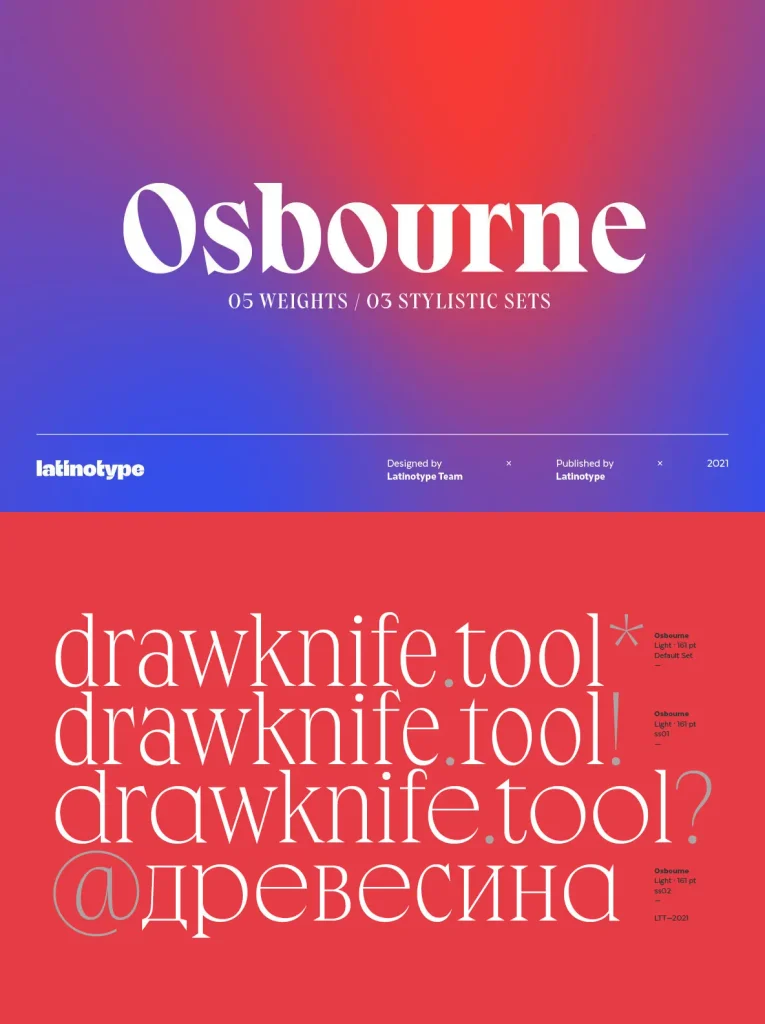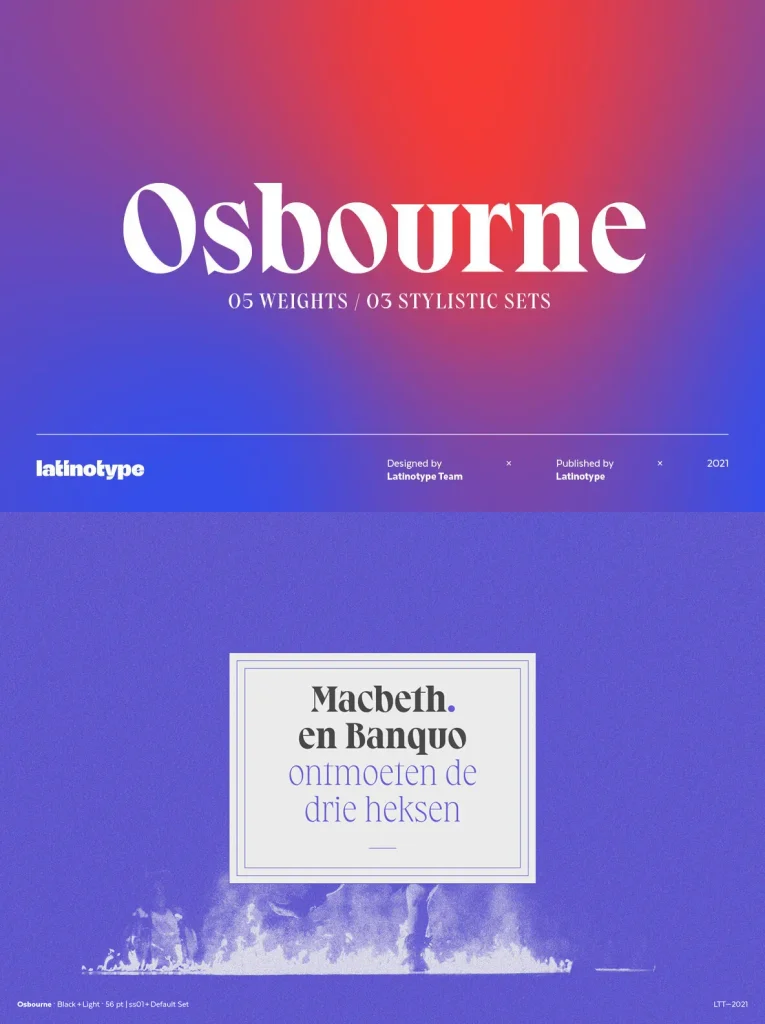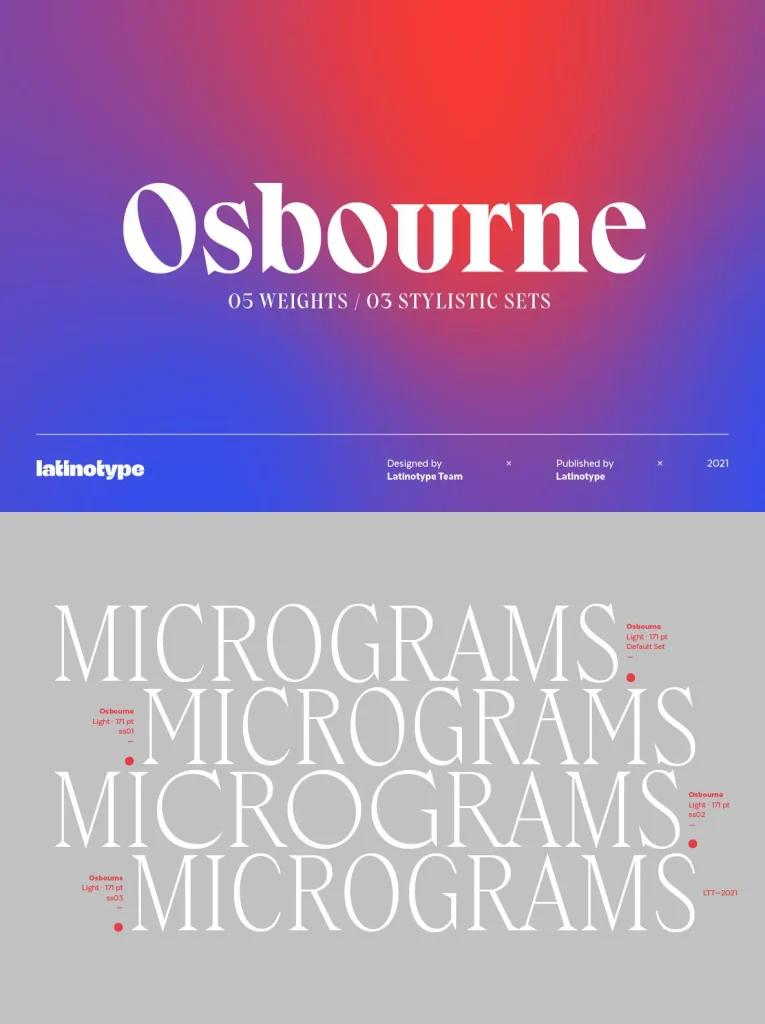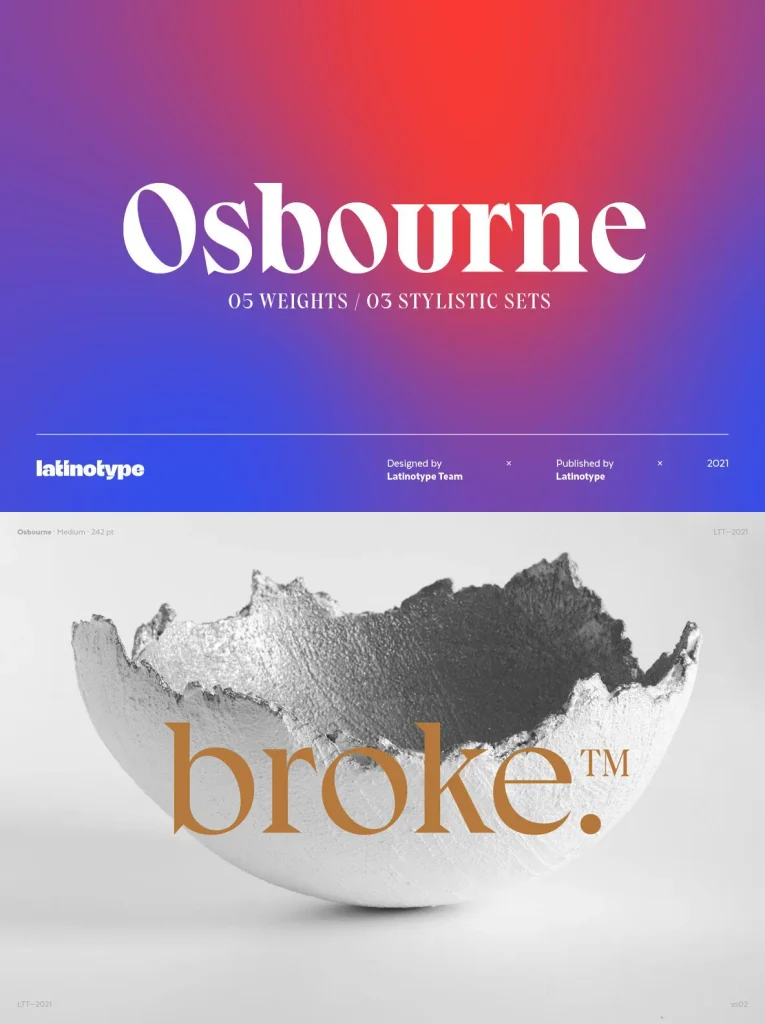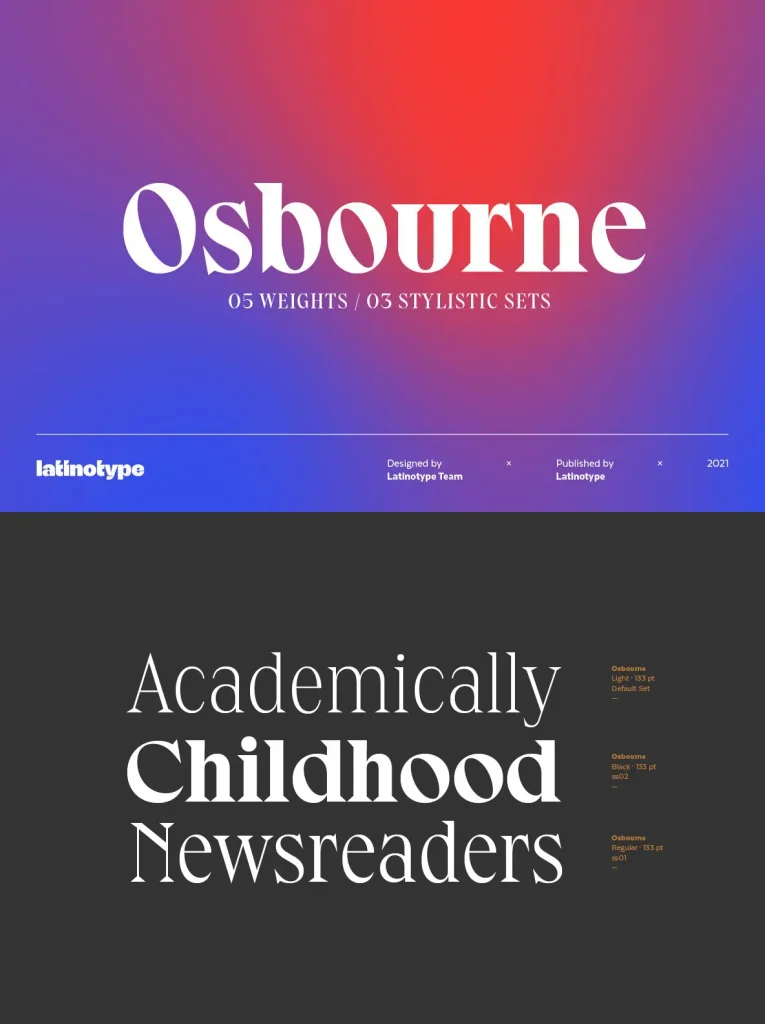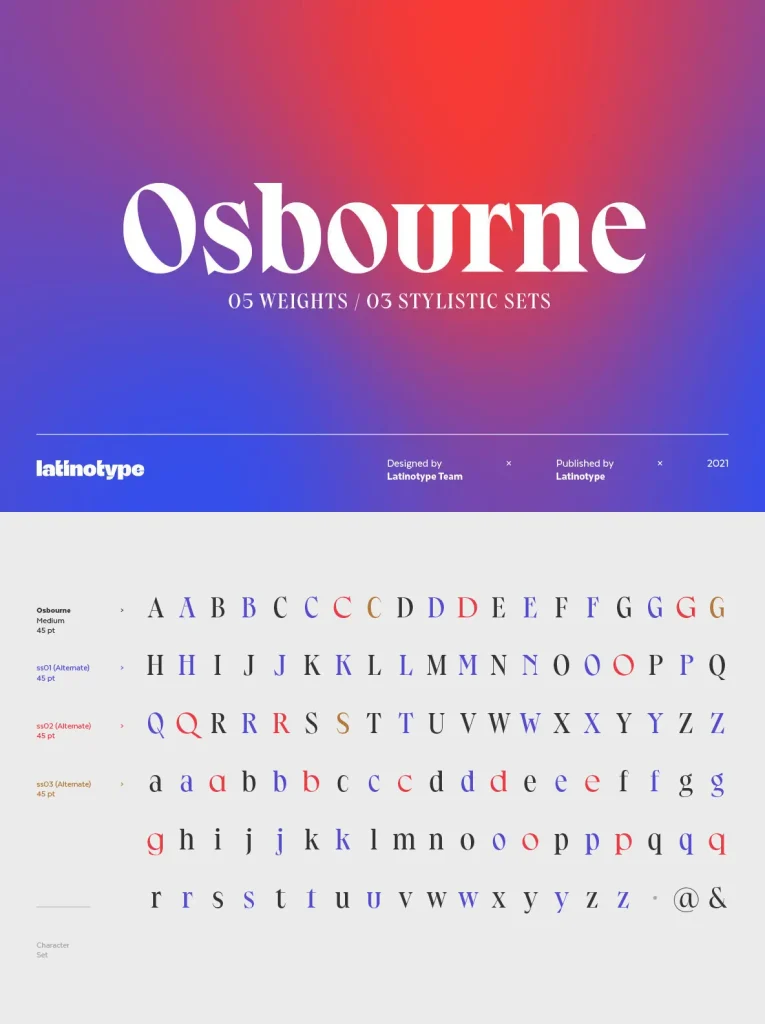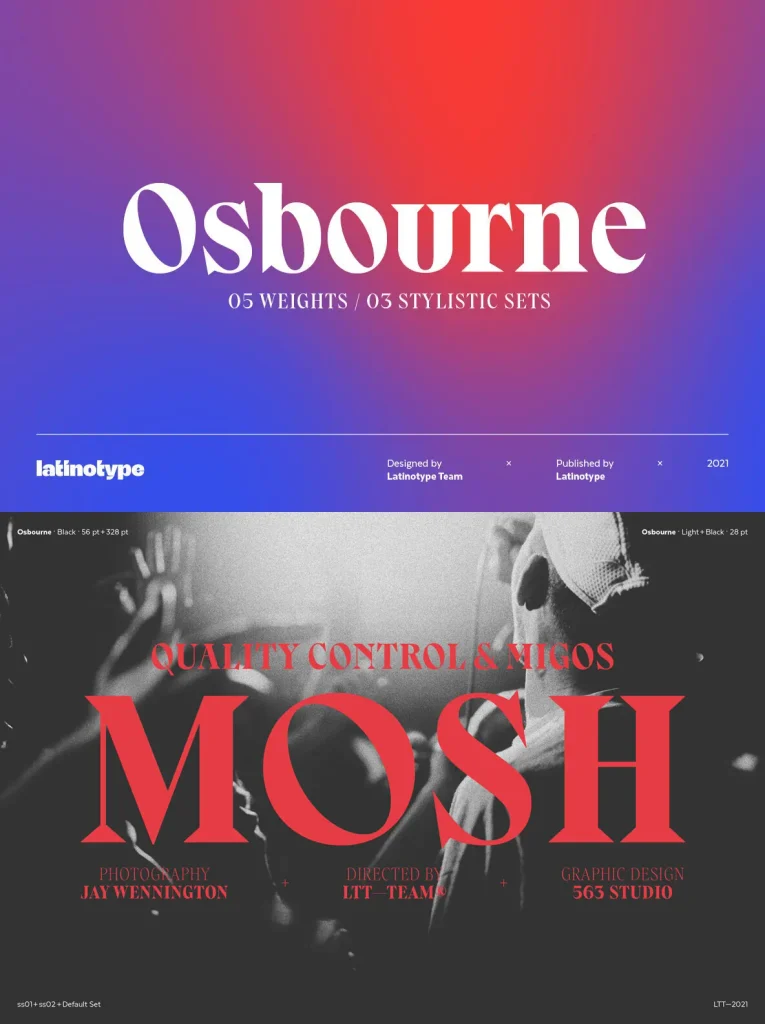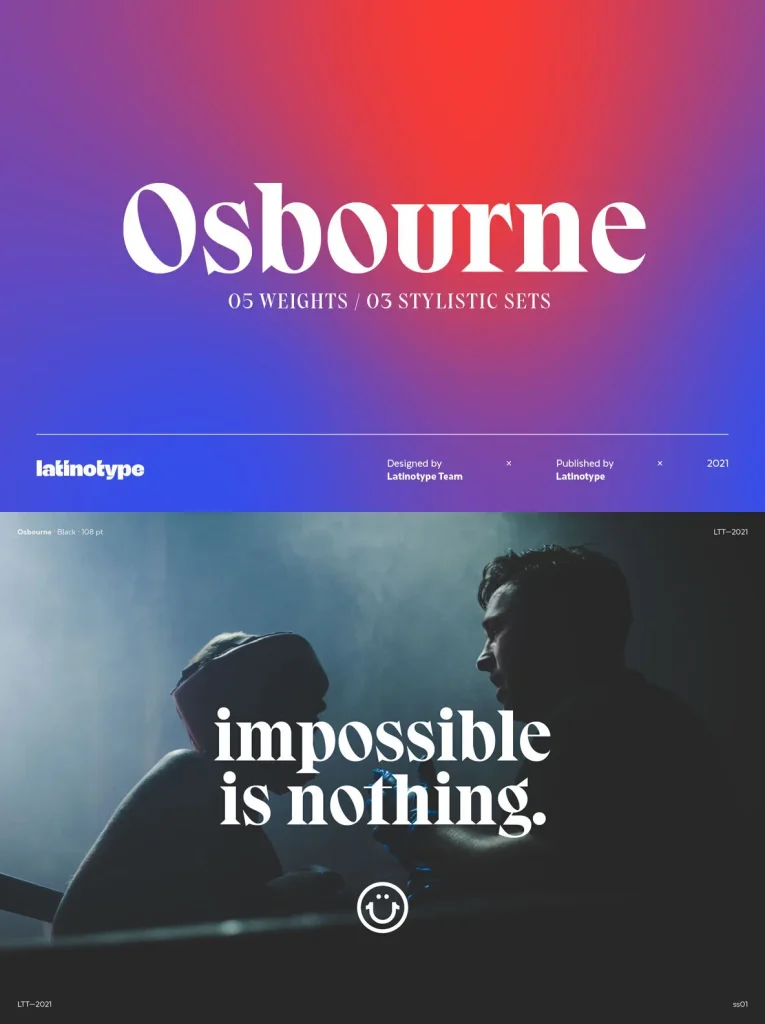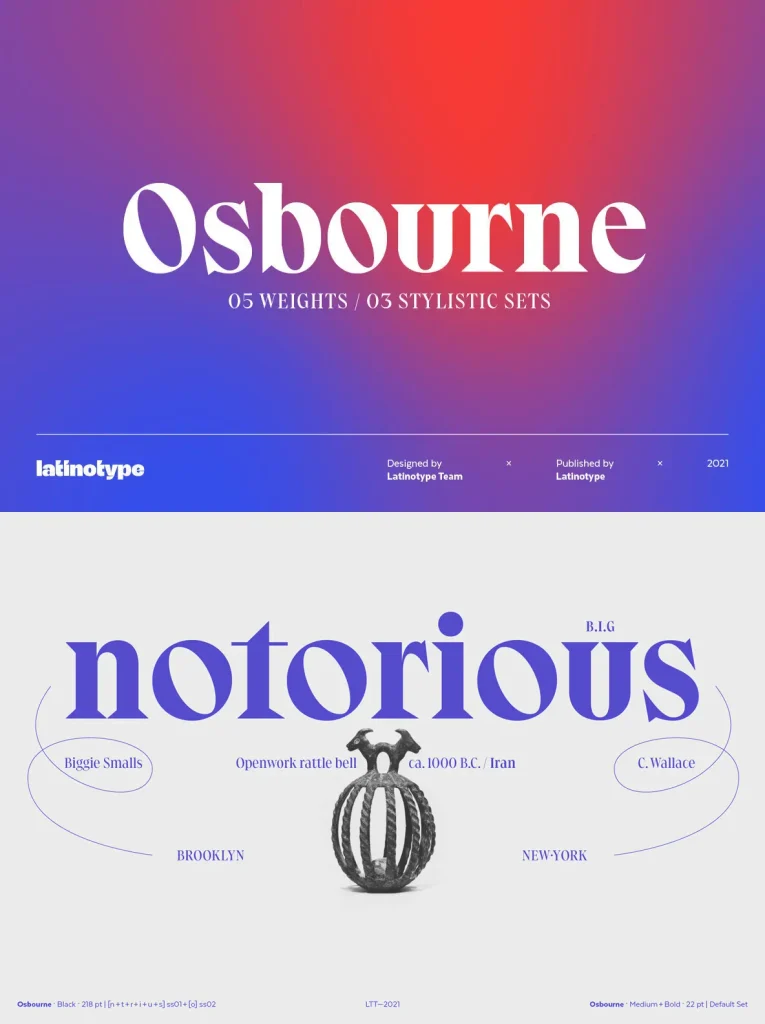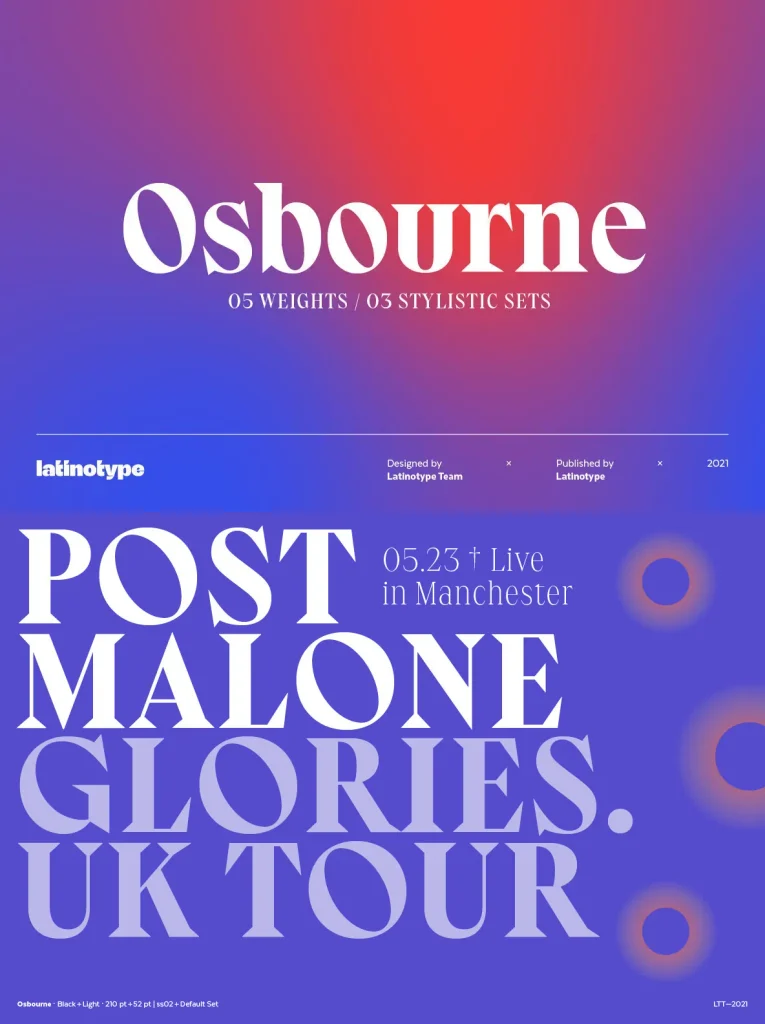
Osbourne Display Typeface: Modern Sharpness with Historic Roots
Osbourne stands out as a display typeface inspired by the historic Salem design from Keystone Type Foundry. This typeface features a tall x-height and condensed proportions, giving each character clarity and a striking appearance. The sharp contouring and purposeful structure make Osbourne ideal for projects seeking a refined, impactful look.
Key Features
Based on a respectful refresh of the Salem typeface
Elevated x-height for legibility and bold presence
Condensed shapes maximize space without sacrificing style
Distinctly sharp details draw the eye in editorial and headline settings
This typeface offers both a default version and expanded options to suit a variety of creative needs. Osbourne is well-suited for magazine covers, posters, identities, and anywhere you need typographic distinction with a nod to classic design heritage.